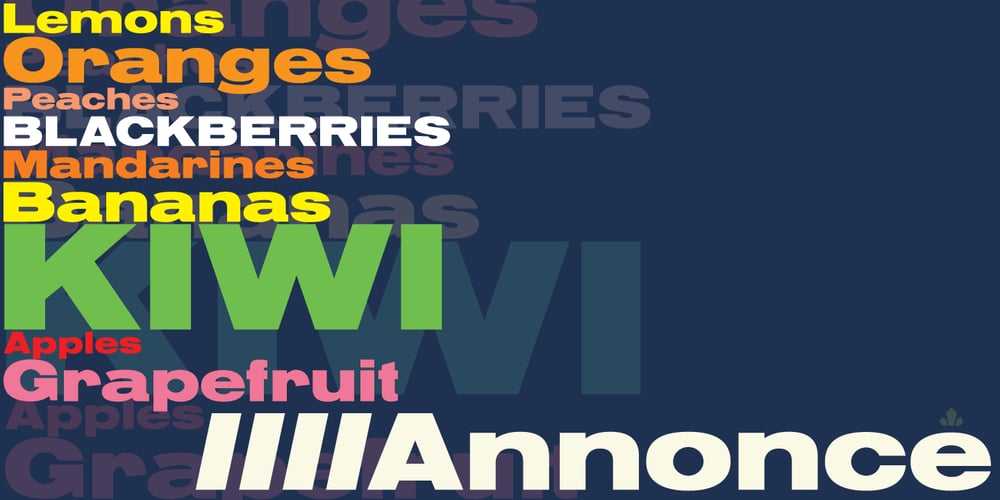
Annonce Font Family was designed by Hans van Maanen and published by Canada Type. Annonce contains 2 styles and family package options. Annonce is a digitization and expansion of a 1912 Johannes Wagner Foundry classic called Aurora Grotesk, which also circulated later on in metal under the name Annonce. Bold, extended and clear as a bell, Annonce stood out as the definite big sign font long before the Helveticas of the world. With angled cuts on some of the letters, it also shows humanistic traits that make it more appealing than any other face in its genre. The Annonce set comes in two fonts, a regular and an italic, and includes a very large character set that accommodates almost all Latin-based languages, including Turkish, Baltic, Celtic, Maltese, Esperanto, and the languages of Central and Eastern Europe.